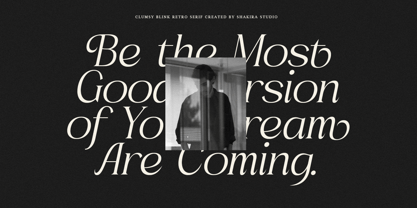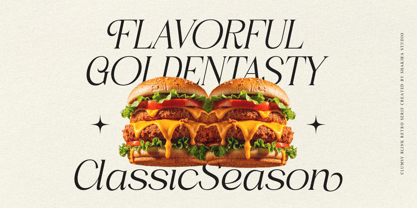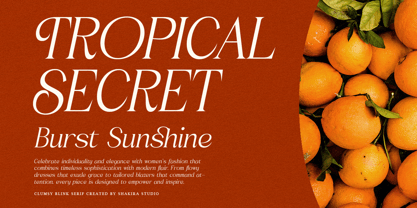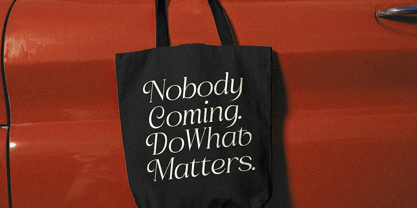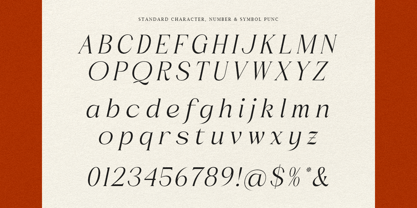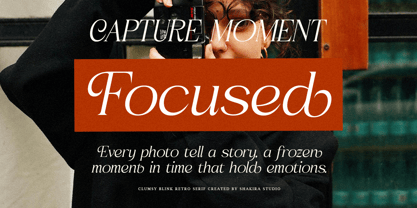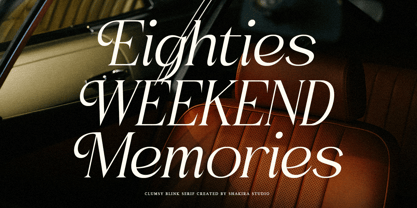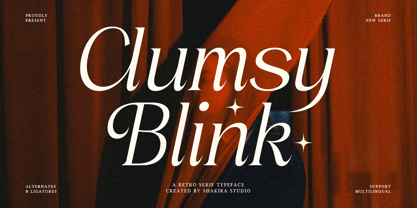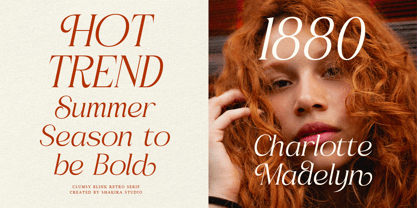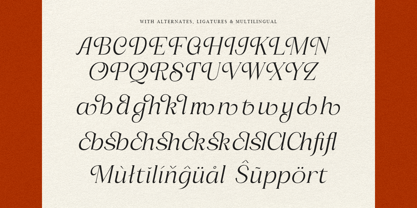
Clumsy Blink
by Shakira Studio
The Clumsy Blink Font Family was designed by Idhham Cholid Rikzano Yahya and published by Shakira Studio. Clumsy Blink contains 2 styles and family package options.
Clumsy Blink – Retro Serif Font with 70s Nostalgic Vibes
Clumsy Blink is more than just a font—it’s a trip back to the vibrant and bold era of the 70s. With its retro serif design, this font captures the essence of nostalgia while offering modern versatility. Available in regular and italic versions, Clumsy Blink is perfect for branding, logo design, packaging, posters, and more. Whether you’re crafting a vintage-inspired logo or designing a standout poster, this font ensures your work radiates the charm and energy of the 70s.
Where Retro Nostalgia Meets Modern Creativity
Clumsy Blink stands out with its bold, stylish alternates and ligatures, offering endless creative possibilities. Its versatility makes it ideal for projects that demand a retro-inspired look, from corporate branding to creative packaging and posters. This font isn’t just a tool—it’s a statement of creativity and nostalgia.
Key Features
• Retro Serif Design – Perfect for branding, logo design, packaging, and posters.
• Regular & Italic Versions – Versatile options for a variety of design needs.
• Stylish Alternates & Ligatures – Add a unique and creative touch to your designs.
• Multilingual Support – Compatible with over 20 languages, including English, French, German, Spanish, and more.
Elevate Your Designs with Clumsy Blink isn’t just a font—it’s a tool to transform your creative projects into bold, retro-inspired masterpieces. Whether you’re designing for print, digital, or branding, this font ensures your work stands out with confidence and style.
Designers: Idhham Cholid Rikzano Yahya
Publisher: Shakira Studio
Foundry: Shakira Studio
Design Owner: Shakira Studio